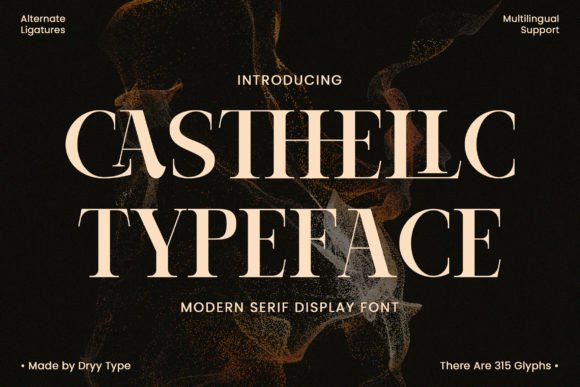
Flourish your creative visions with Casthelic Font - an exquisite serif font crafted by Dryy.type, meticulously designed to embody beauty and elegance.
Indulge in the allure of Casthelic, a font that dances with grace and finesse. Its enchanting curves and delicate serifs evoke a sense of timeless sophistication, making it the perfect choice for those seeking a touch of elegance in their designs.
With Casthelic as your creative companion, you'll have the power to transform ordinary projects into captivating masterpieces. Let its refined lines add an air of luxury to your branding, wedding invitations, or any project that yearns for a touch of sophistication.
Casthelic is not just a font; it's an artistic expression that elevates your designs to new heights. It's the perfect choice for beauty clinics, fashion boutiques, or any brand that seeks to exude elegance and charm.
Unleash your creativity and let Casthelic guide you on a journey of visual enchantment. Its timeless beauty will leave a lasting impression on your audience, ensuring that your designs radiate elegance and sophistication.